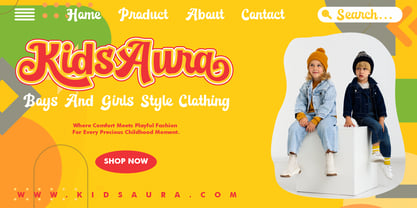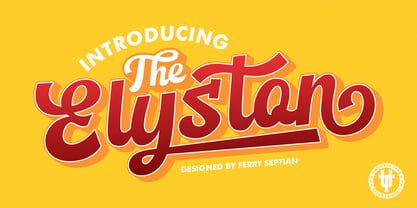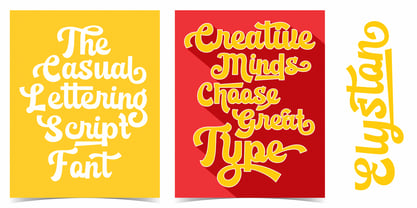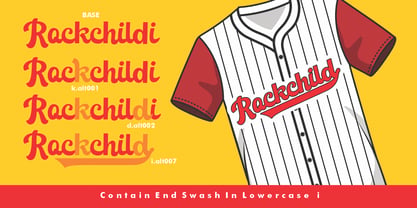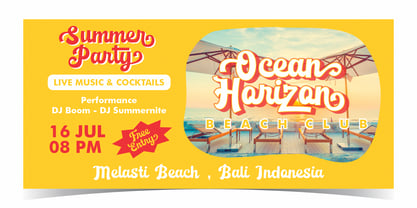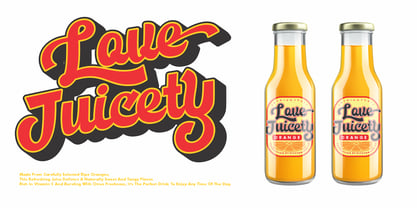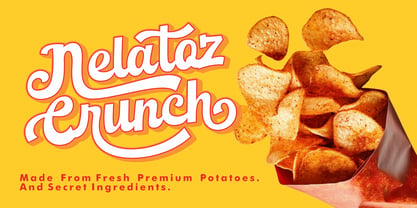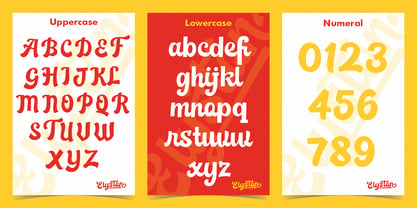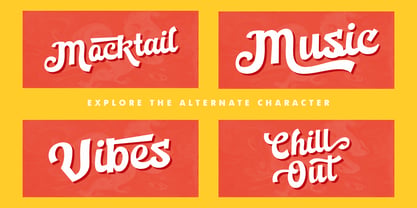
Elyston
by Uncurve
The Elyston Font Family was designed by Ferry Septian and published by Uncurve. Elyston contains 1 styles. More about this family
Elyston is a casual script font that combines a fun, stylish look with effortless readability. Featuring tons of alternate characters and beautiful end swashes, Elyston gives you the freedom to create expressive lettering that feels both natural and unique. Its smooth brush strokes add a friendly, handcrafted touch, making every design more lively and eye-catching.
Perfect for logos, clothing brands, fashion, websites, magazines, book covers, invitations, social media graphics, packaging, kids' projects, lettering posters, sports branding, baseball, jerseys, quotes, and much more. Whether you're designing for a modern lifestyle brand or a playful creative project, Elyston delivers a beautiful balance of casual elegance, feminine charm, and bold personality. Pair it with serif or sans serif fonts to create stunning typography that stands out in any design.